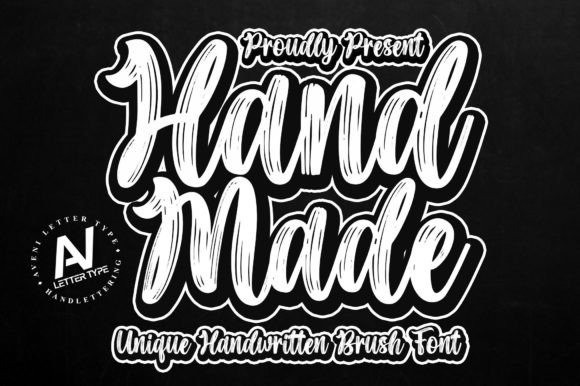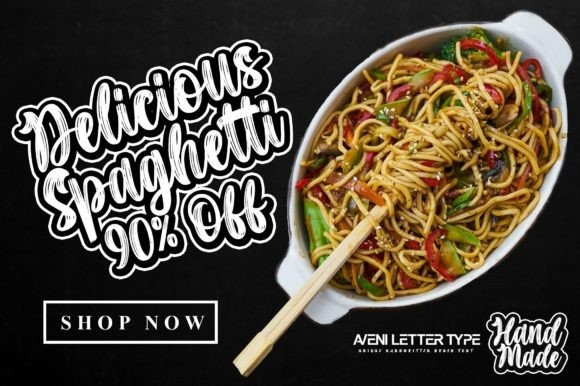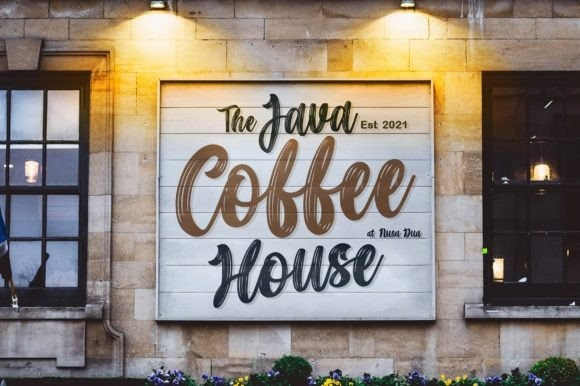
Handmade Font
Handmade is a unique handwritten script font that is stylish with brushes and has a very neat kerning. Expertly designed to make your creations look amazing. This font will look great on a variety of ideas, and use it to get creative in apparel branding, daily quotes, tote bag or handbag branding, product packaging, headers, posters, merchandise, social media & greeting cards.